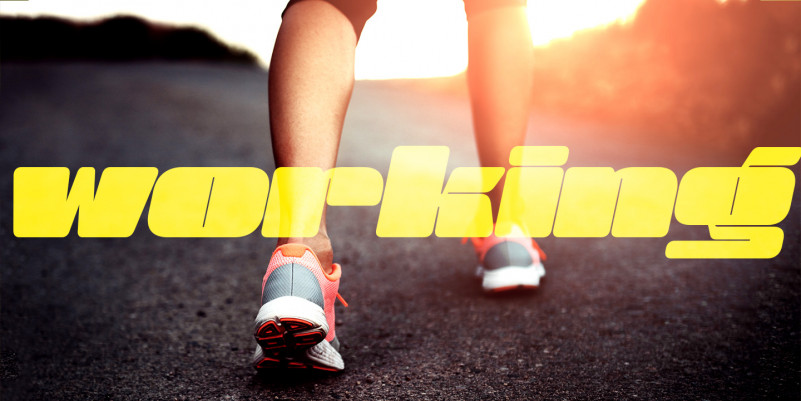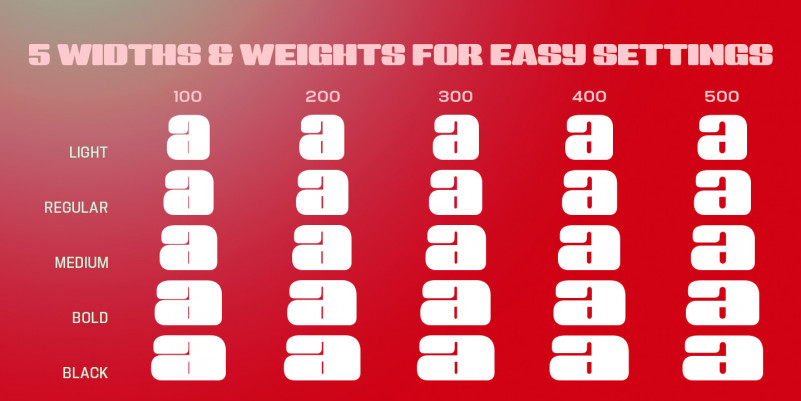
Sneakers Max Font
Sneakers was a typeface that I originally drew all the way back in 2005, with a release in 2006. Its most recent iteration, Sneakers Pro was released in 2009. Since then, the idea of reworking the design has lingered in the back of my head, but I wanted to add additional flexibility and value to anything offered beyond the originals. Sneakers Max does just that and I am happy to see it released and available to everyone.
Sneakers Max raises the bar in terms of functionality… incorporating all of the options found in Sneakers Pro (e.g. Small Caps and a biform/unicase located now in Titling Alternates), but it expands the character offering, improves on letter designs (everything was redrawn) and explores more flexible settings by providing 5 distinct counter widths to keep more uniform multi-line settings with mixed letter heights. Special thanks to Potch Auacherdkul for his additions to the original character set and for his engineering skills.